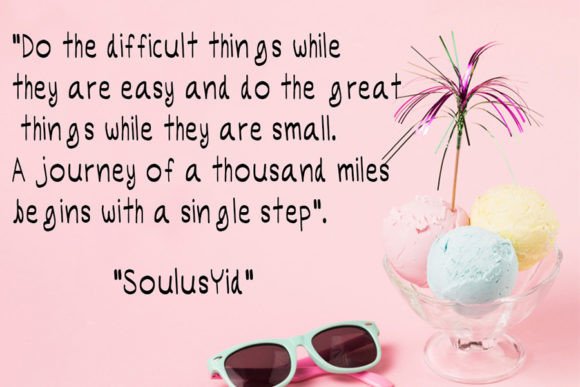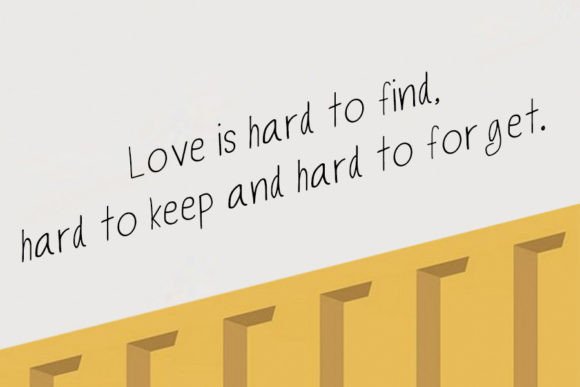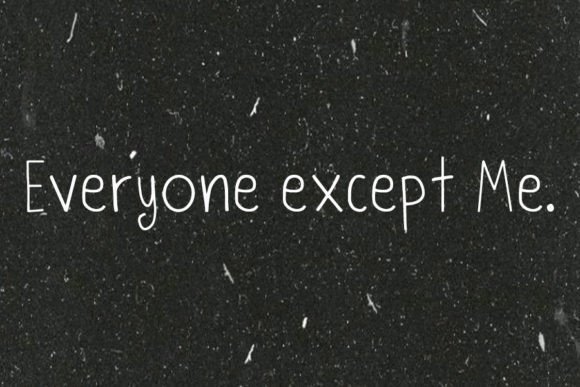
Introduction to Nesline Font
Neslina is a handwritten font with a personal touch, perfect for adding a charming and authentic feel to your designs.
The natural flow and irregularity of the strokes give it a unique and dynamic look Ideal for use in invitations, cards, and scrapbooking.
Key Features of Nesline Font